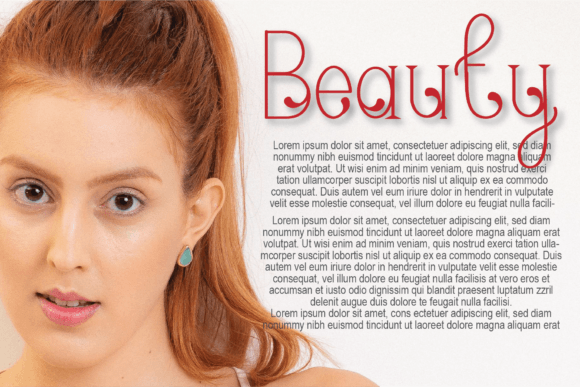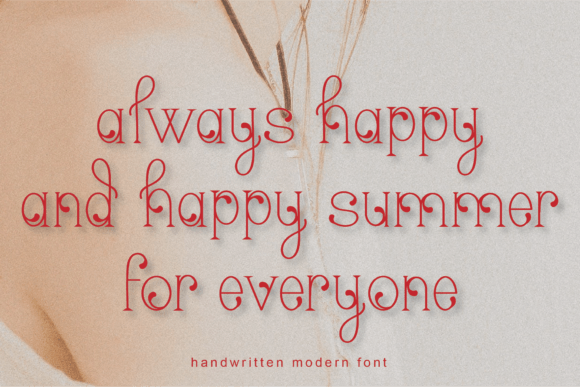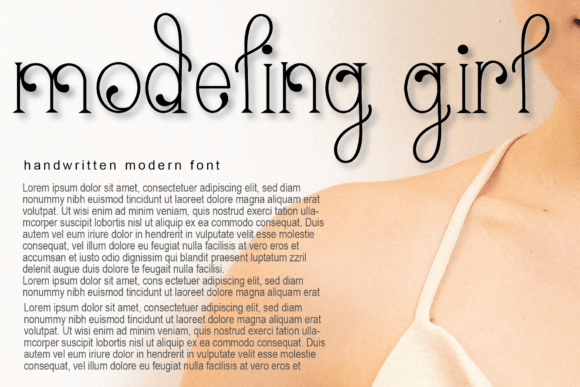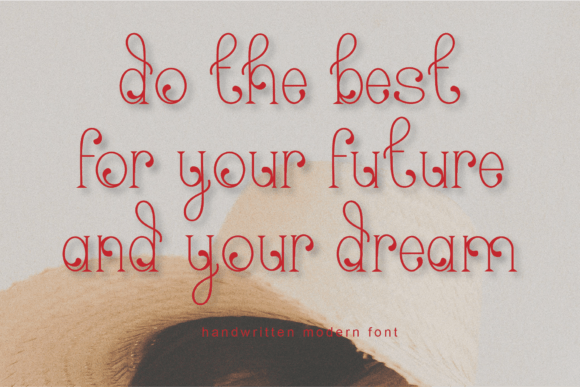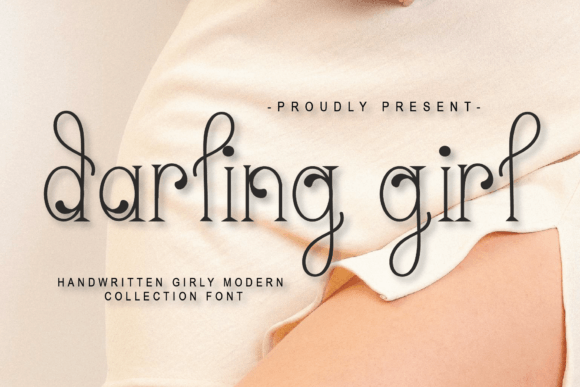
Introducing Darling Girl Font: The Ultimate Feminine and Stylish Handwritten-Serif Font
Are you a designer, crafty DIY enthusiast, or social media influencer looking for a font that exudes elegance, sophistication, and playfulness? Look no further than Darling Girl Font, a beautiful handwritten-serif font that is sure to capture your heart. With its incredibly versatile style, Darling Girl Font is perfect for creating stunning wedding invitations, gorgeous stationery art, eye-catching social media posts, and so much more.
The Charm of Darling Girl Font
Darling Girl Font is a masterfully crafted font that embodies the essence of femininity and style. Its handwritten-serif design gives it a personal and intimate feel, making it perfect for projects that require a touch of warmth and personality. The font’s flowing lines, delicate curves, and subtle imperfections create a sense of movement and fluidity, adding a dynamic touch to any design.
One of the best things about Darling Girl Font is its incredible versatility. Whether you’re designing wedding invitations, creating social media graphics, or crafting beautiful stationery art, this font is sure to impress. Here are just a few ideas to get you started:
- Wedding Invitations: Create stunning wedding invitations, save-the-date cards, and thank-you notes that set the tone for a romantic and unforgettable celebration.
- Stationery Art: Design beautiful stationery, journals, and planners that showcase your personal style and creativity.
- Social Media Posts: Craft eye-catching social media graphics, quotes, and promotional materials that grab attention and inspire engagement.
- Branding and Packaging: Use Darling Girl Font to create custom branding and packaging solutions that reflect your brand’s personality and values.
Why Choose Darling Girl Font?
So, what sets Darling Girl Font apart from other fonts? Here are just a few reasons why designers and crafters love this beautiful font:
- Feminine and Stylish: Darling Girl Font is the perfect choice for projects that require a touch of femininity and elegance.
- Handwritten-Serif Design: The font’s handwritten-serif design gives it a personal and intimate feel that is sure to connect with your audience.
- Incredibly Versatile: Darling Girl Font can be used for a wide range of projects, from wedding invitations to social media graphics.
- Easy to Read: The font is clear, legible, and easy to read, making it perfect for body text and headlines.
Tips for Using Darling Girl Font
To get the most out of Darling Girl Font, here are a few tips to keep in mind:
- Pair with Other Fonts: Experiment with pairing Darling Girl Font with other fonts to create stunning contrast and visual interest.
- Play with Colors: Darling Girl Font looks beautiful in a range of colors, from soft pastels to rich jewel tones.
- Add Decorative Elements: Consider adding decorative elements, such as flowers or illustrations, to enhance the font’s feminine and playful feel.
Darling Girl Font is a beautiful, feminine, and stylish handwritten-serif font that is sure to capture your heart. With its incredibly versatile style, this font is perfect for designers, crafters, and social media influencers looking to add a touch of elegance and sophistication to their projects. Whether you’re creating wedding invitations, stationery art, or social media graphics, Darling Girl Font is the perfect choice. So why wait? Fall in love with Darling Girl Font today and start creating stunning designs that inspire and delight!